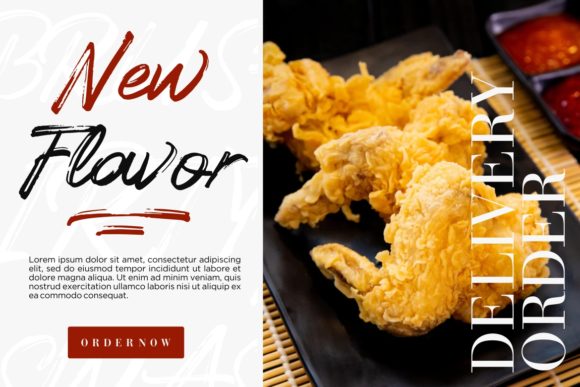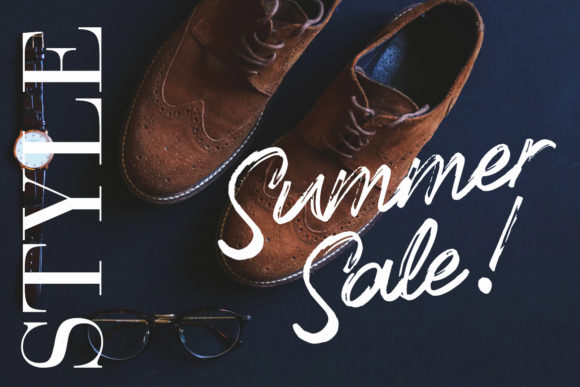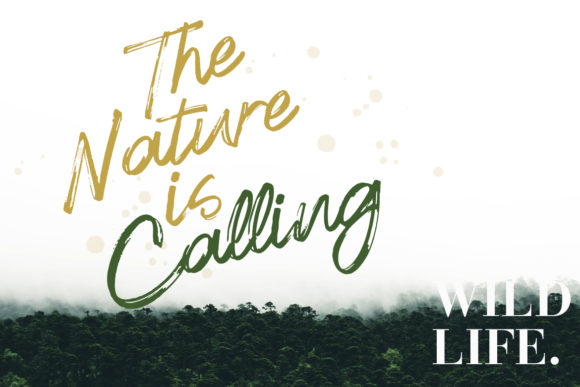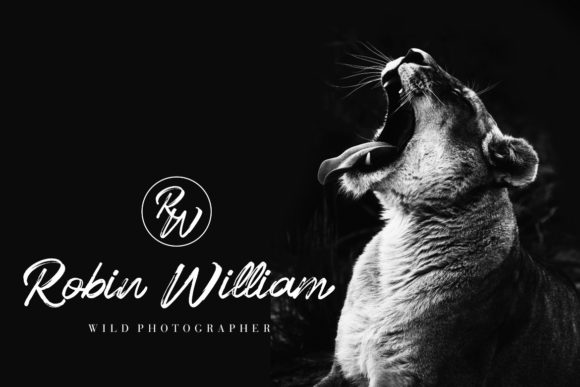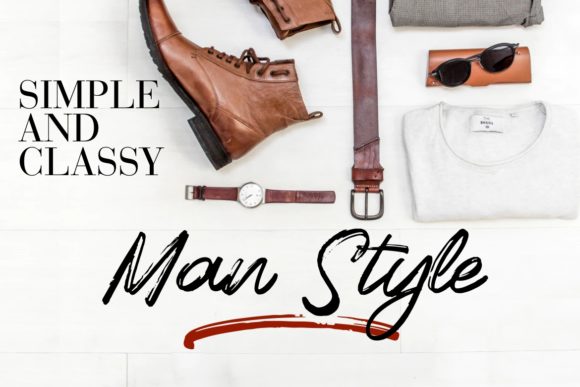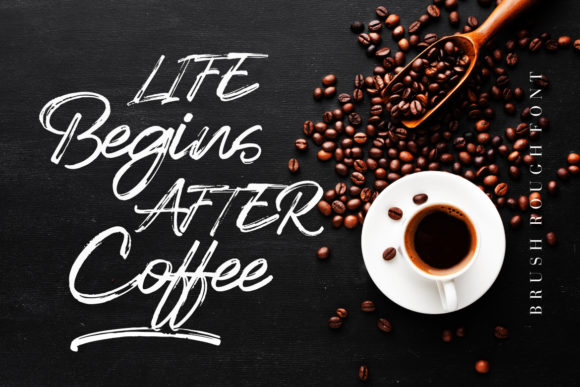
Unleash Your Creativity with Crunchy Font: The Ultimate Brush Script Font
Are you a designer, crafty enthusiast, or social media influencer looking for a font that can add a touch of personality to your creative projects? Look no further than Crunchy Font, a cool brush script font that’s perfect for creating logos, product branding, posters, social media posts, and more!
What is Crunchy Font?
Crunchy Font is a unique and fun brush script font that’s designed to ignite your creativity. Its playful and energetic vibe makes it an ideal choice for projects that require a personal touch. With its rough, hand-painted texture, Crunchy Font adds a sense of authenticity and charm to any design.
Key Features of Crunchy Font
- Cool Brush Script Style: Crunchy Font boasts a stylish brush script design that’s perfect for creating eye-catching headlines, titles, and captions.
- Perfect for Logos and Branding: With its unique and memorable style, Crunchy Font is ideal for creating custom logos, product branding, and packaging designs.
- Versatile and Flexible: Use Crunchy Font for a wide range of projects, including posters, flyers, social media posts, blog headers, and more.
Why Choose Crunchy Font?
So, why should you choose Crunchy Font for your next project? Here are just a few reasons:
- Adds Personality to Your Design: Crunchy Font’s playful and energetic style adds a touch of personality to any design, making it perfect for projects that require a personal touch.
- Stand Out from the Crowd: With its unique and memorable style, Crunchy Font helps your design stand out from the crowd and grab attention.
- Time-Saving: Crunchy Font saves you time and effort, as you can easily create professional-looking designs without having to spend hours on custom typography.
How to Use Crunchy Font
Using Crunchy Font is easy! Here are some tips to get you started:
- Pair it with Other Fonts: Combine Crunchy Font with other fonts to create a unique and visually appealing design.
- Play with Size and Scale: Experiment with different font sizes and scales to create visual hierarchy and emphasis.
Who is Crunchy Font for?
Crunchy Font is perfect for:
- Graphic Designers: Add a touch of personality to your designs and create unique branding materials.
- Crafty Enthusiasts: Use Crunchy Font for handmade projects, such as card making, scrapbooking, and DIY crafts.
- Social Media Influencers: Create eye-catching social media posts and stories that stand out from the crowd.
- Small Business Owners: Use Crunchy Font for branding, packaging, and marketing materials to add a personal touch.
Crunchy Font is a versatile and fun brush script font that’s perfect for designers, crafty enthusiasts, and social media influencers. With its unique style and flexibility, Crunchy Font is an ideal choice for a wide range of projects. So why wait? Ignite your creativity with Crunchy Font and take your designs to the next level!